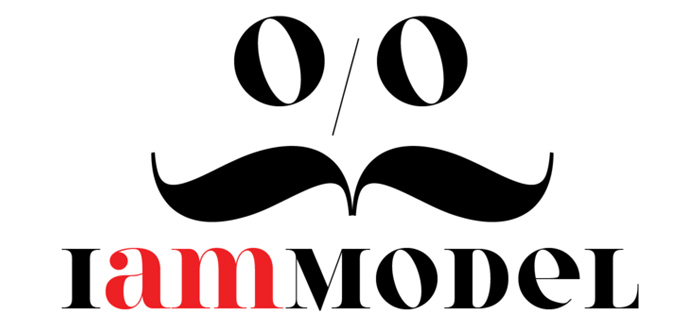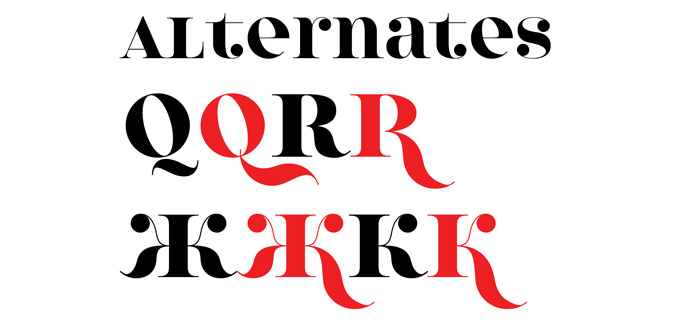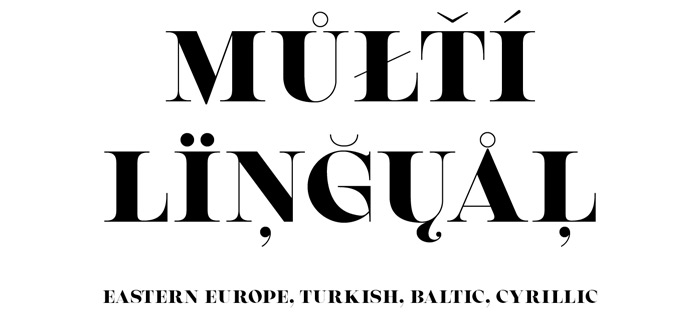
Model 4F font
Model 4F font is the latest release to 4th February’s type foundry collection (Condesqa 4F font, Zantiqa font). It’s a high contrast typeface with beautifully designed unicase characters. Model 4F font is perfect solution for every strong and catchy headline but you could easily create a logo or even use it in your attractive t-shirt design. Using it for typographic posters would be a great advantage for every designer because Model 4F has unique look and authentic strong presence. It is developed with full character set for western diacritics, Cyrillic alphabet and elegant alternates that will bring more life and diversity in your design.
Designers: Sergiy Tkachenko
Publisher: 4th february